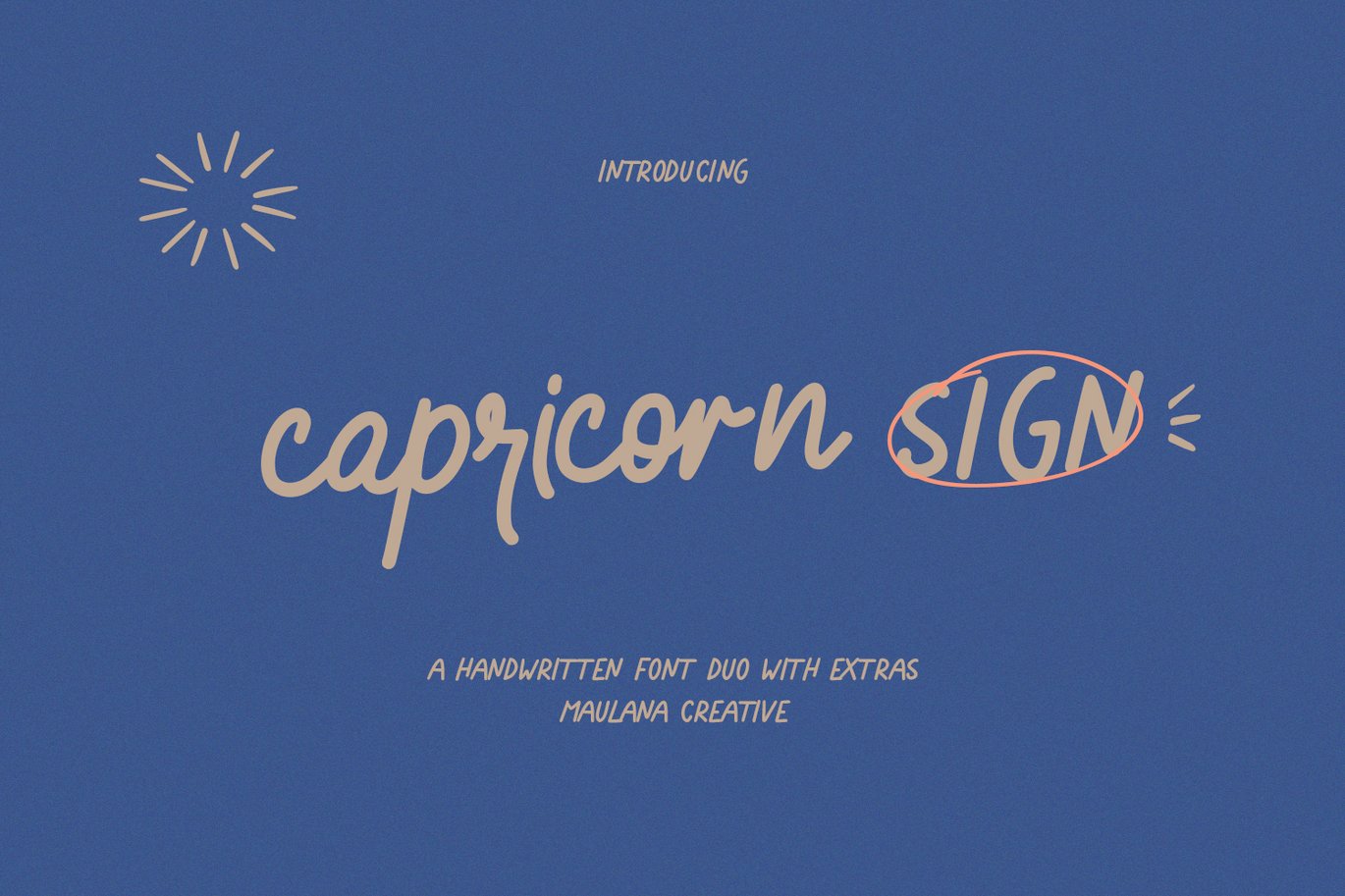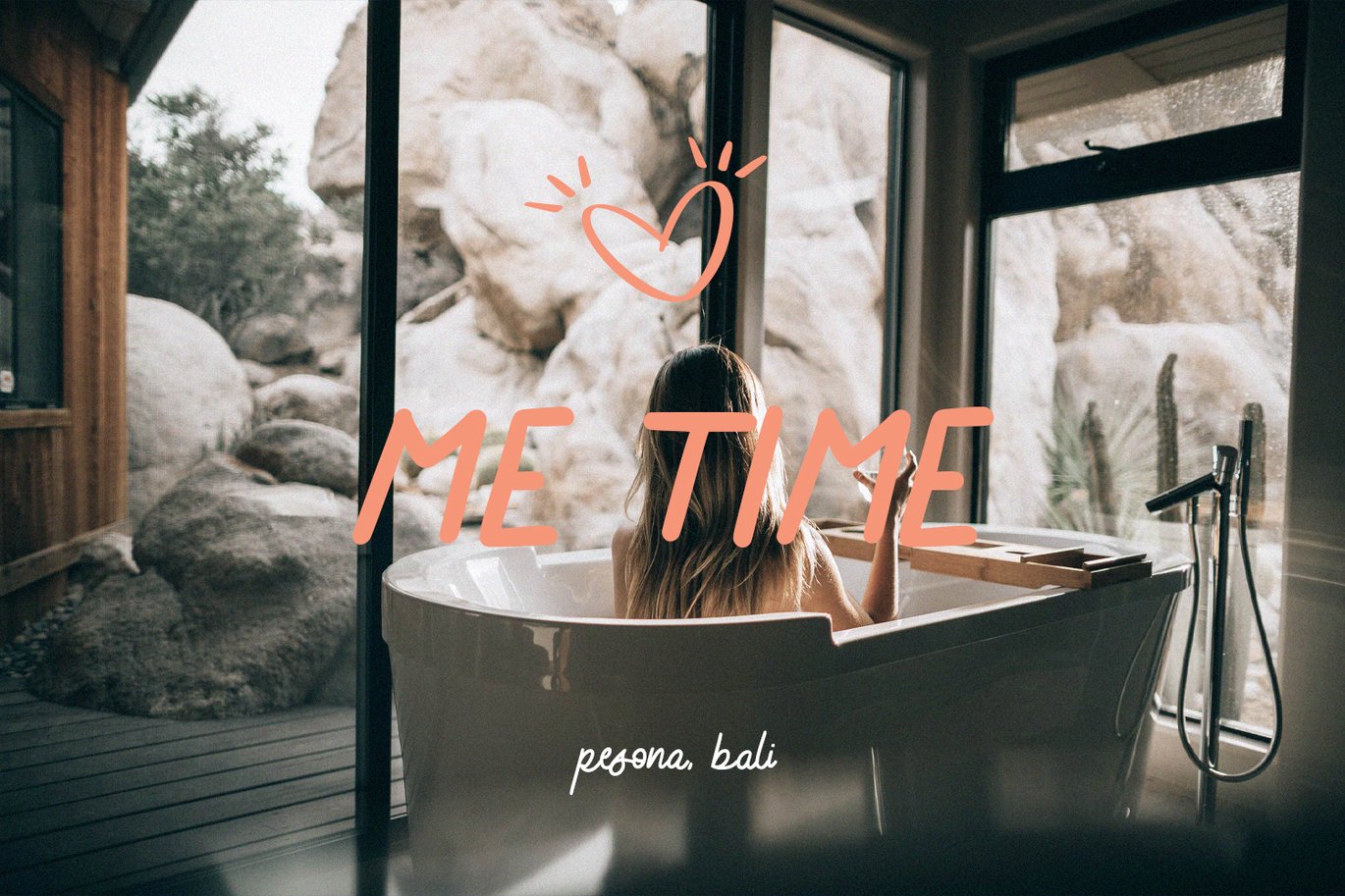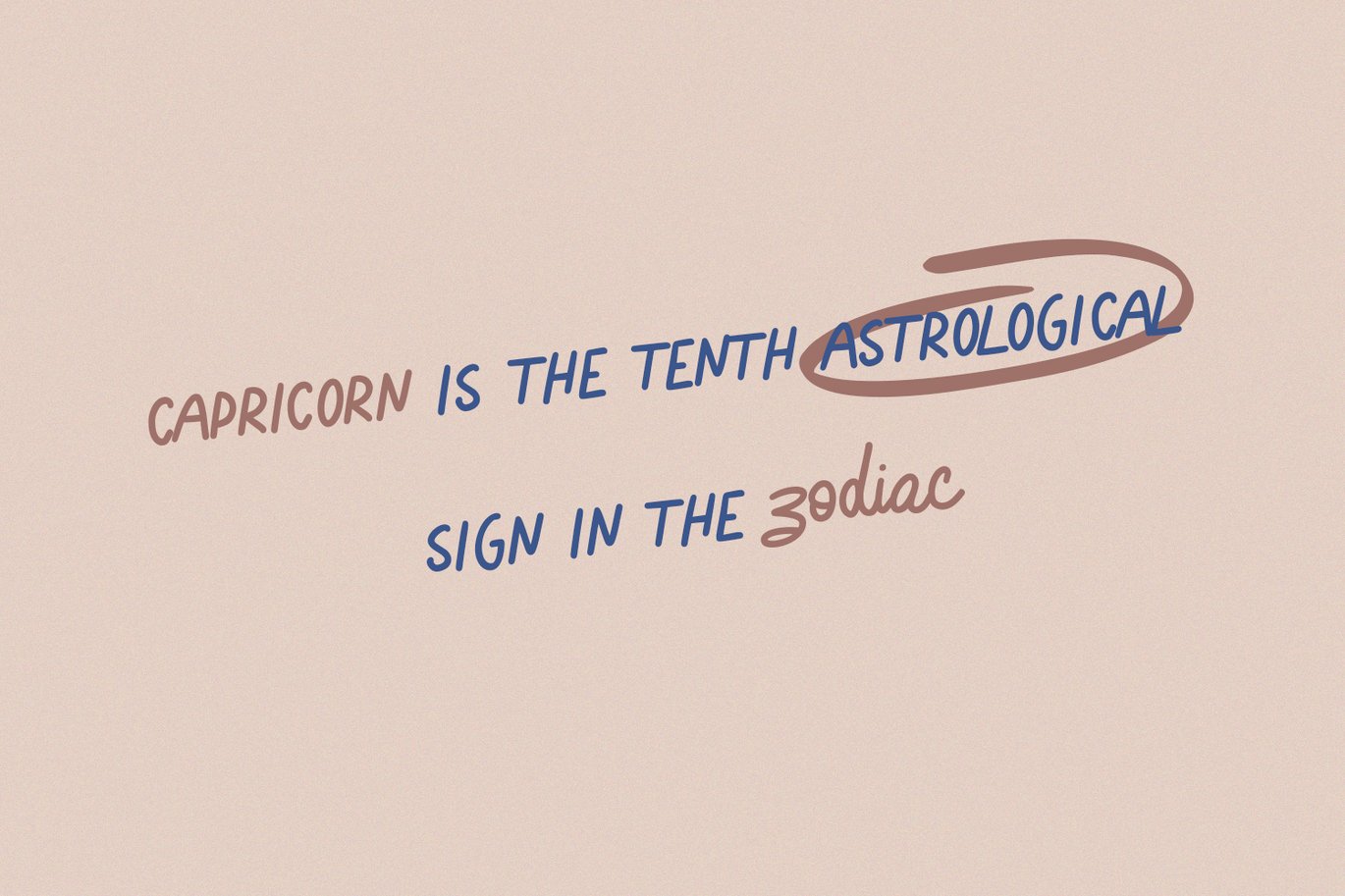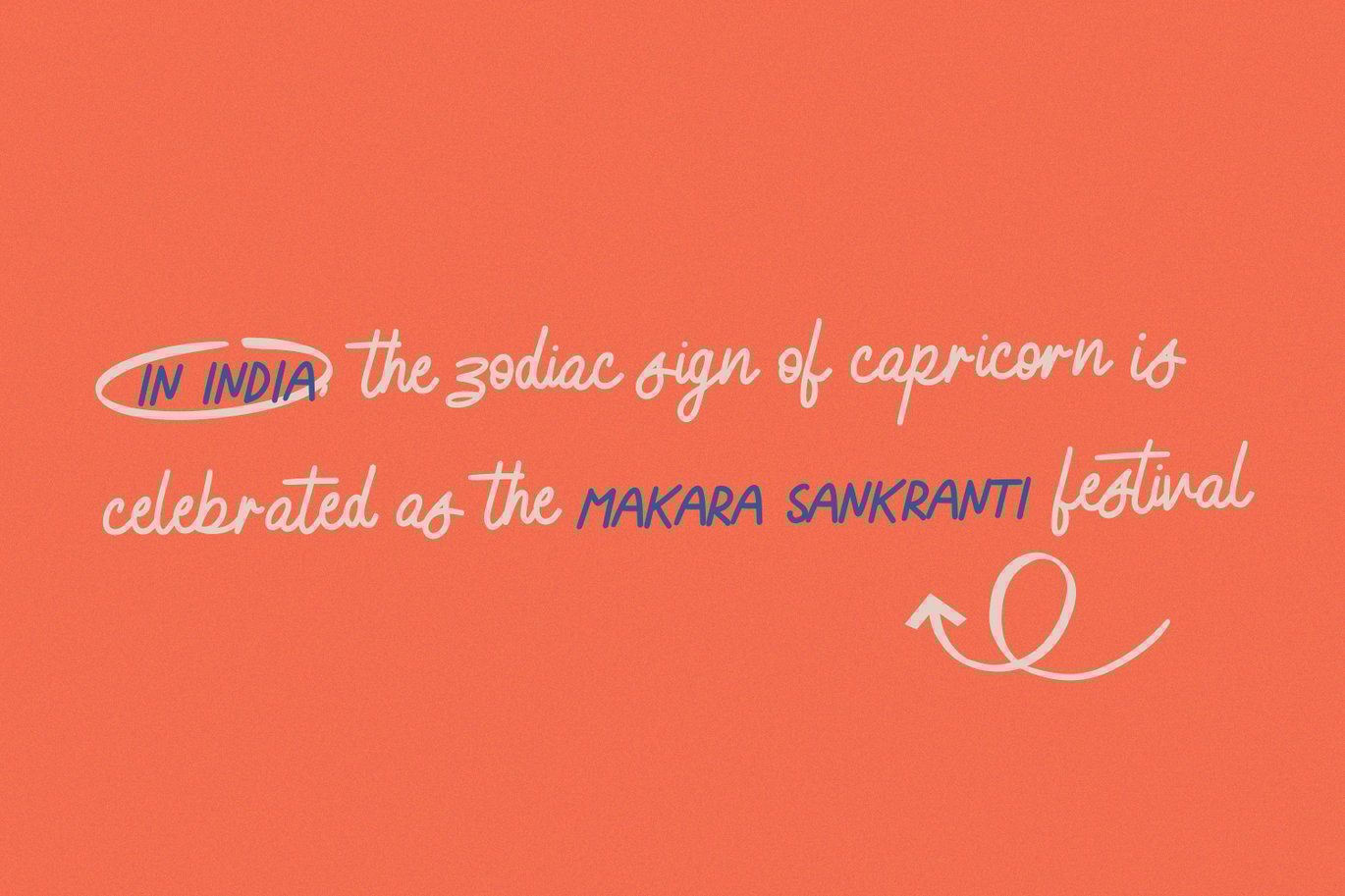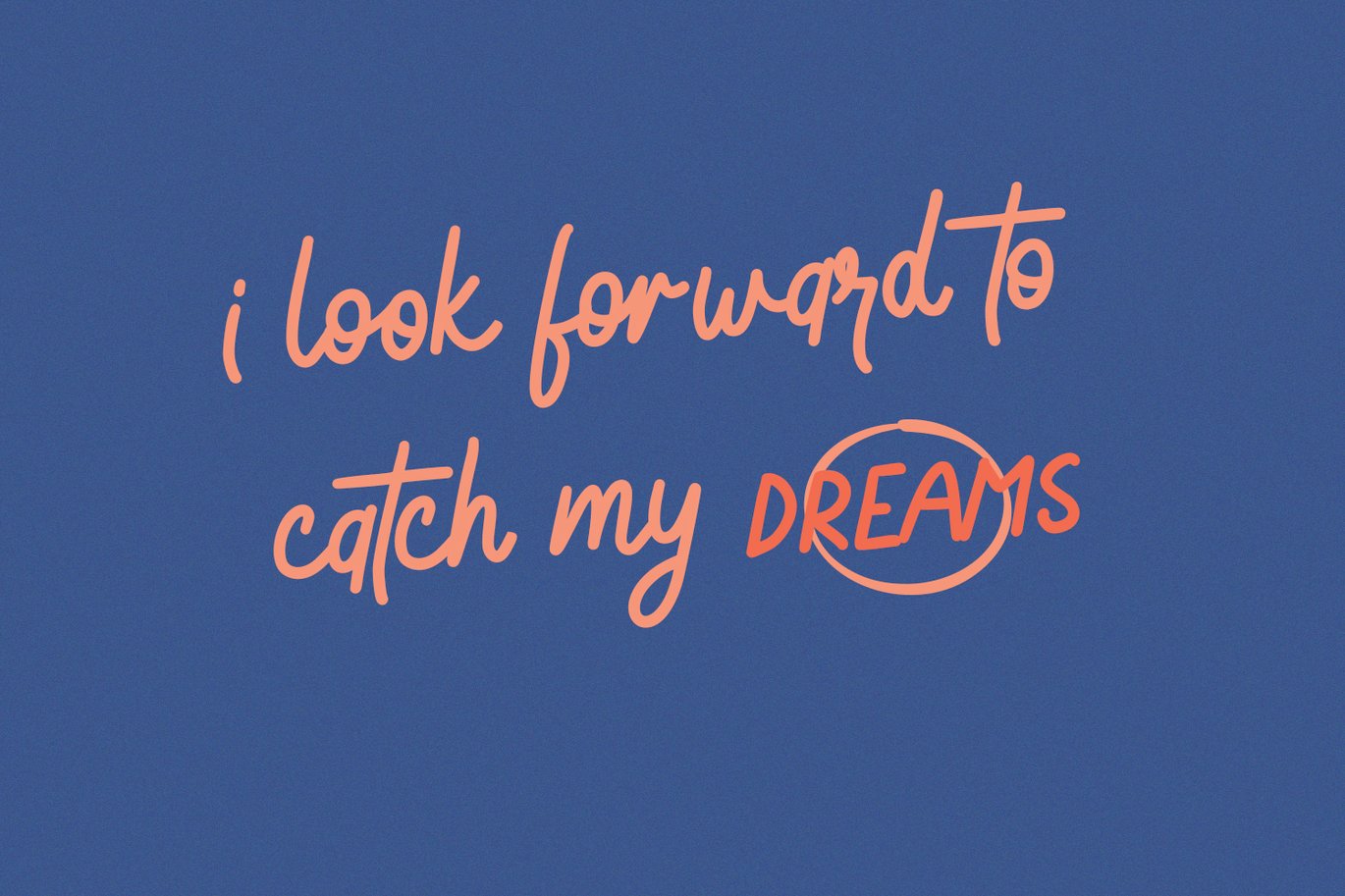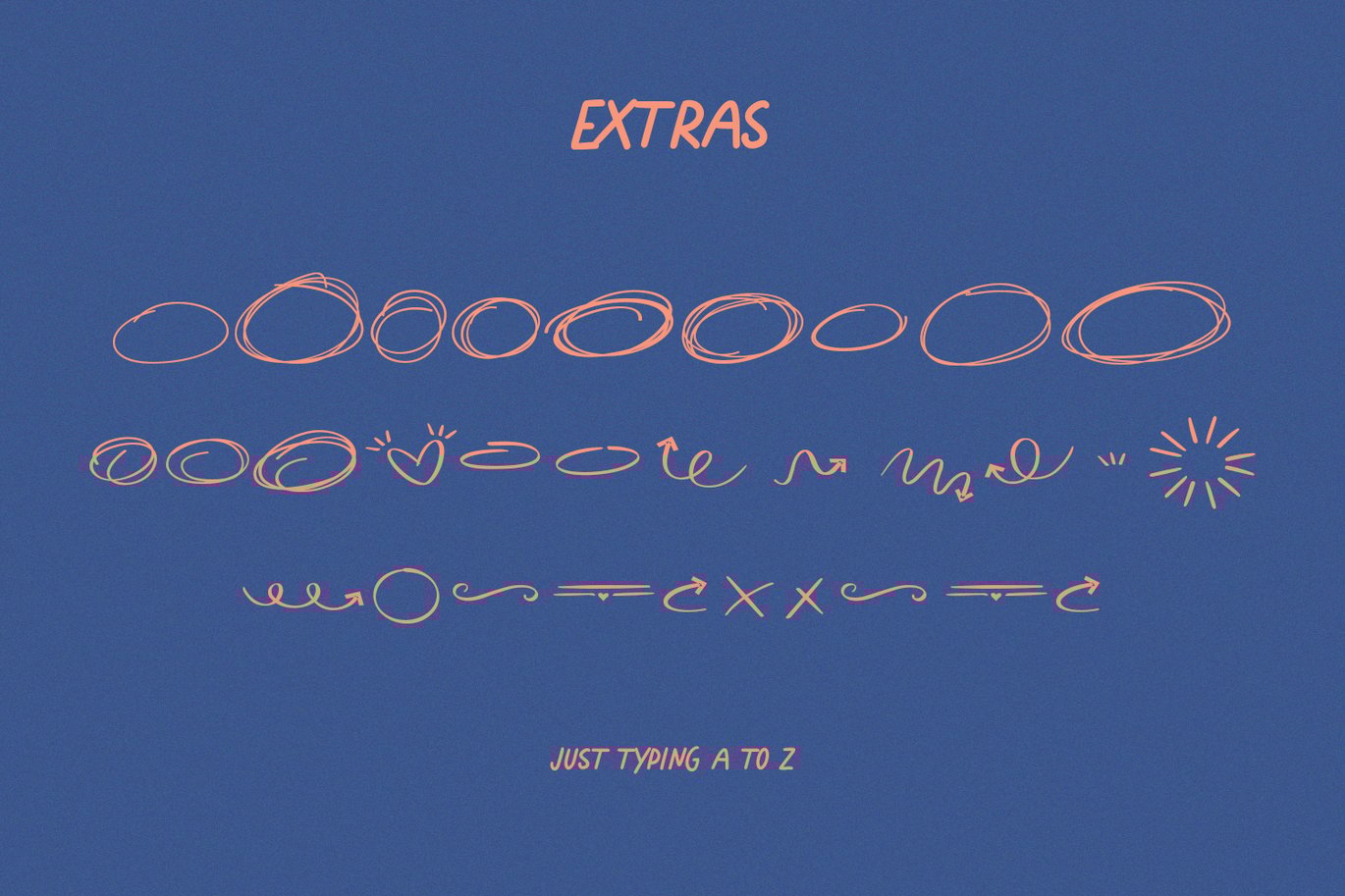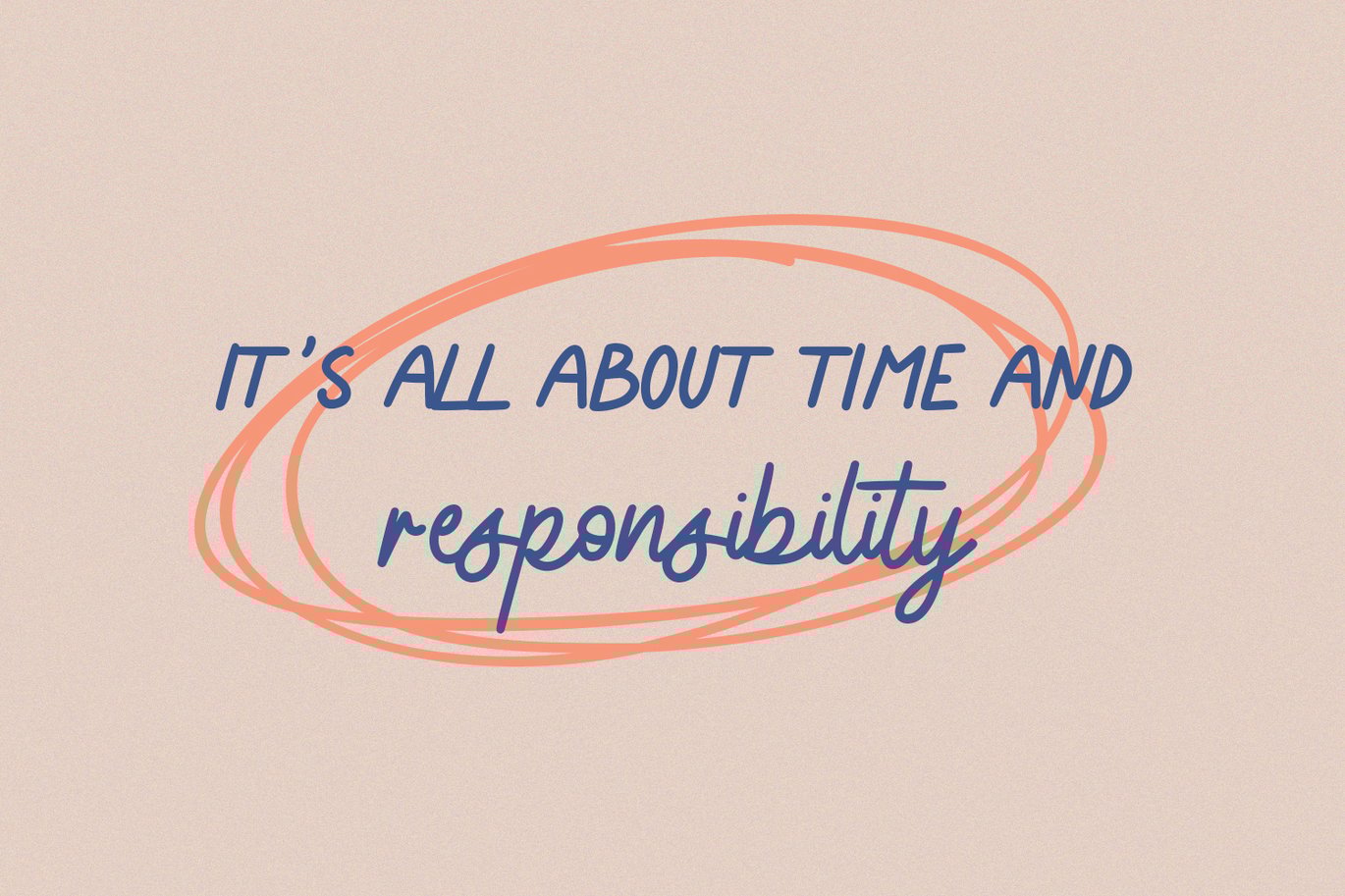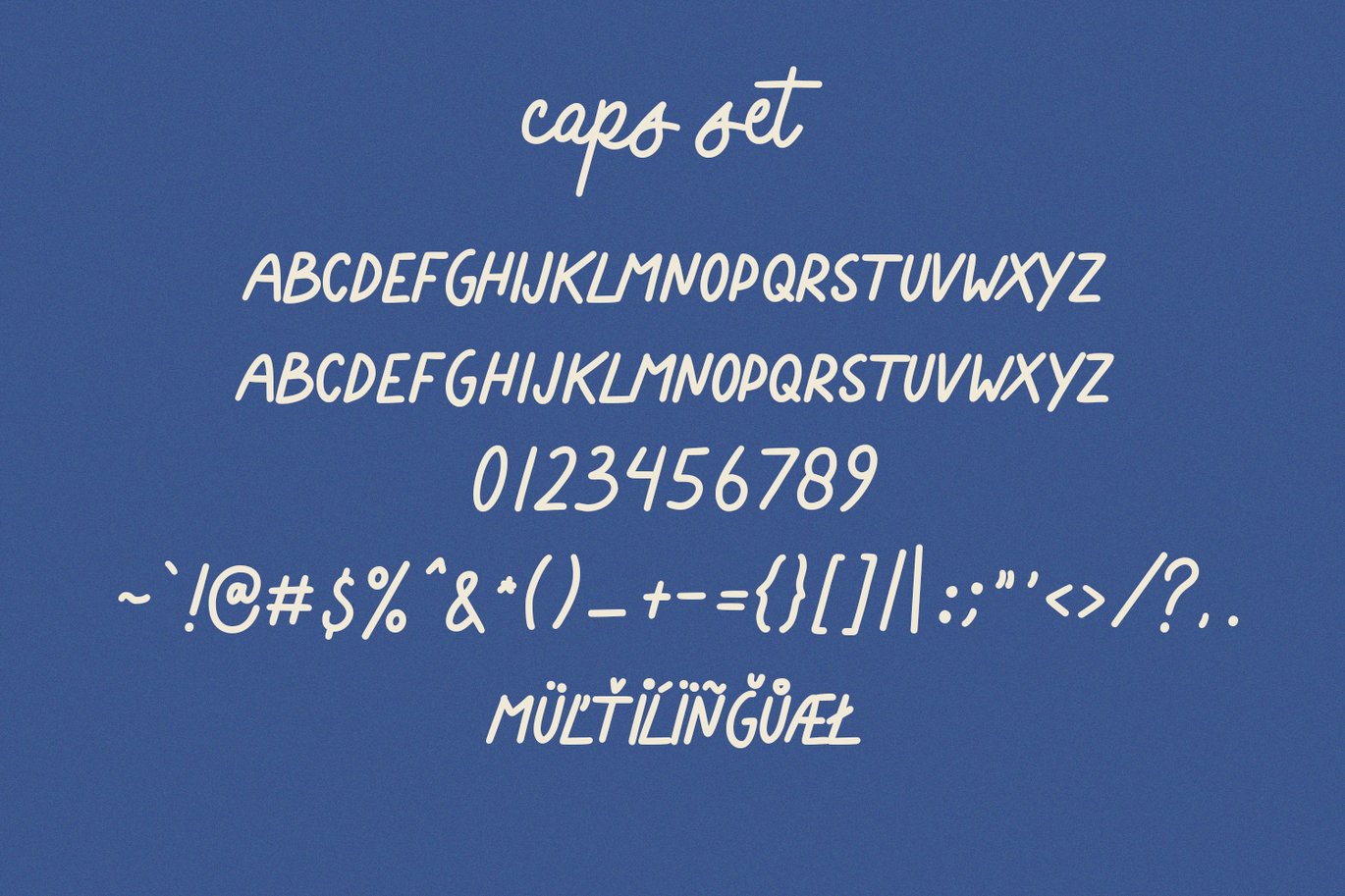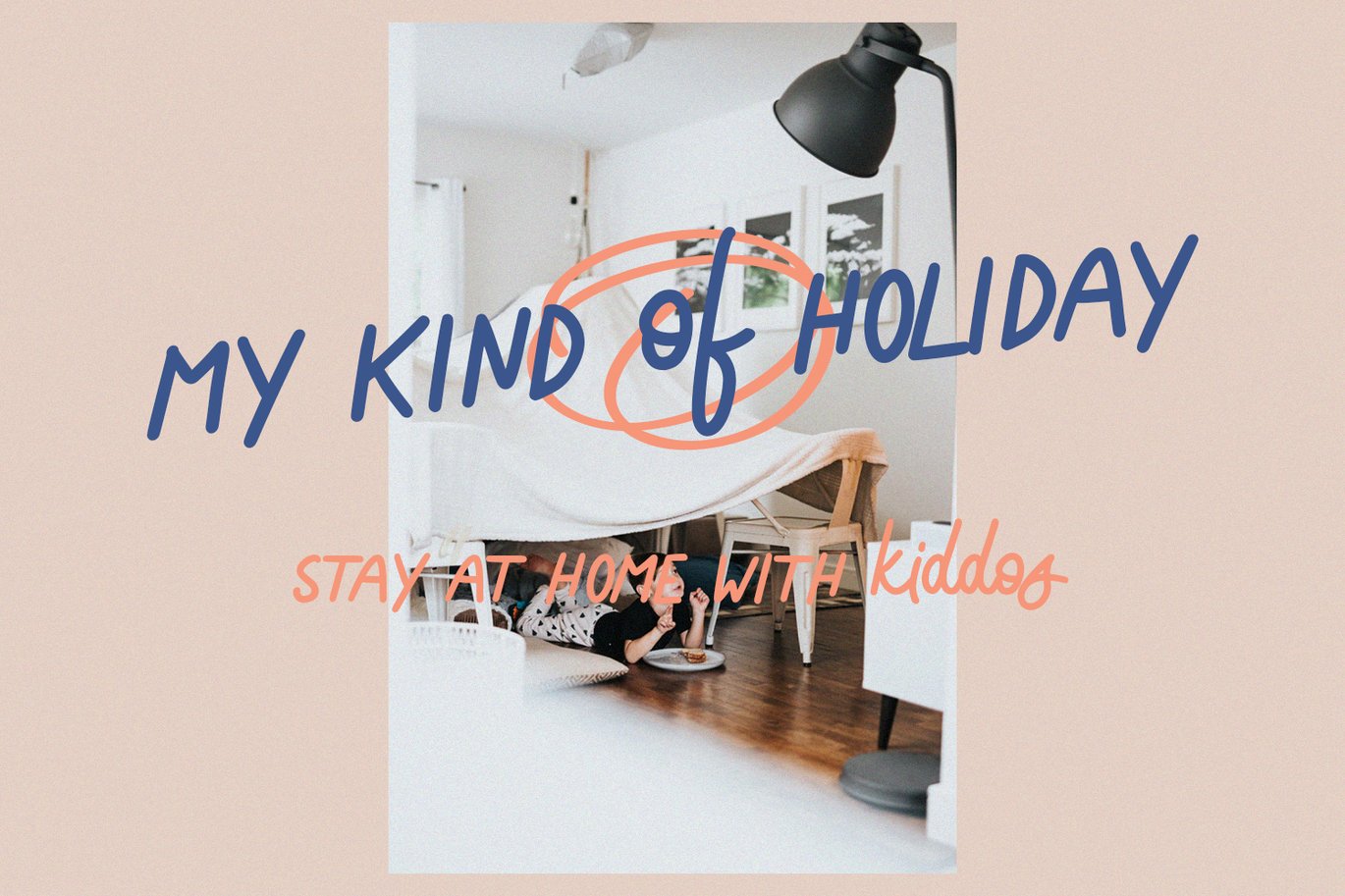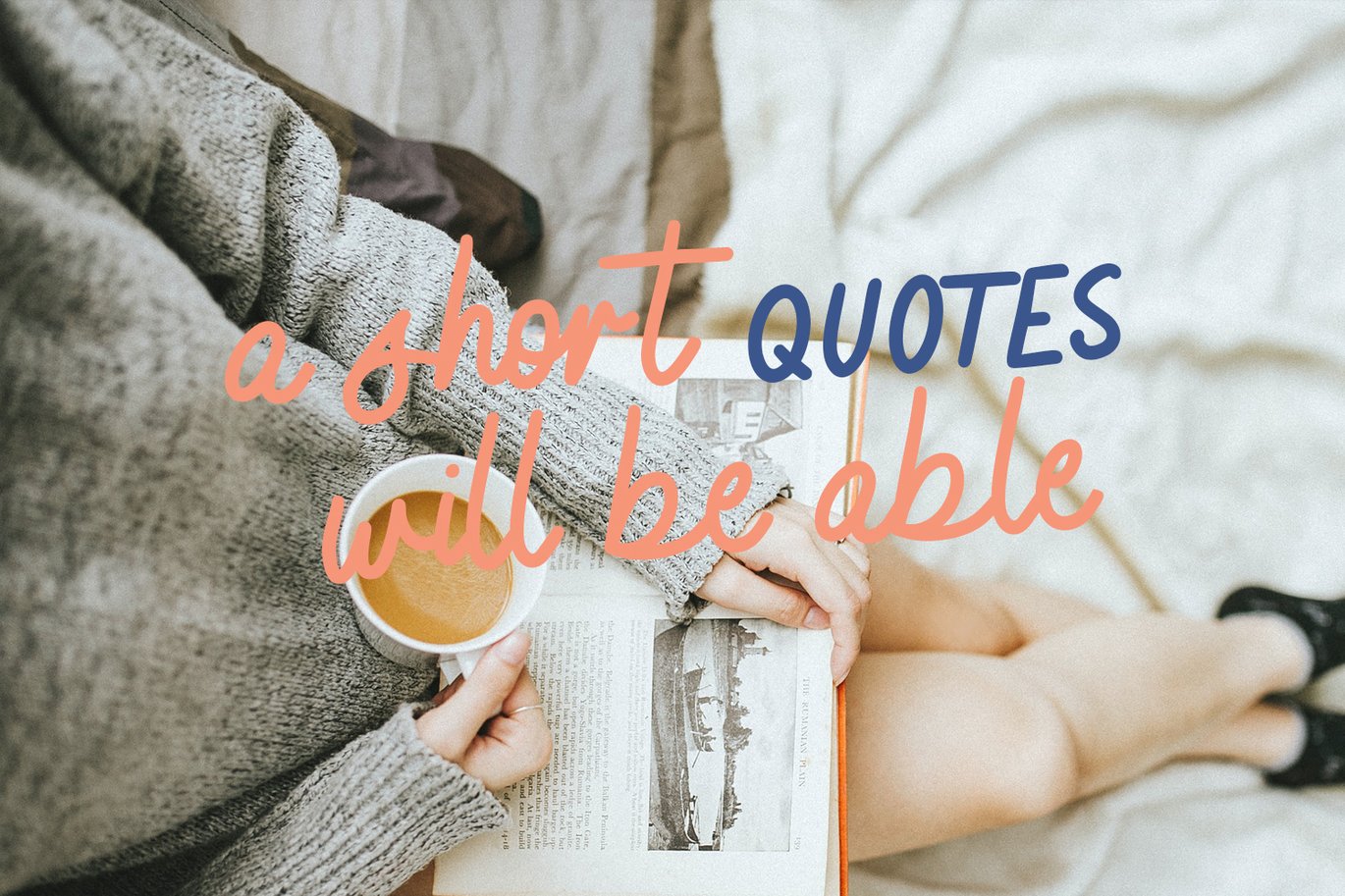
Capricorn Sign Handwritten Font Duo
Capricorn Sign Handwritten Font Duo made with simple and elegant hand writing will create modern and vintage style.
Capricorn Sign is perfect for branding projects, watermark, wedding designs, social media posts, advertisements, product packaging, product designs, label, photography, logo, invitation, stationery and any projects that need handwriting taste.
- Triple Font
- Script, Display Sans and Funny Characters
- Fonts include multilingual support for ä ö ü Ä Ö Ü ß ¿ ¡